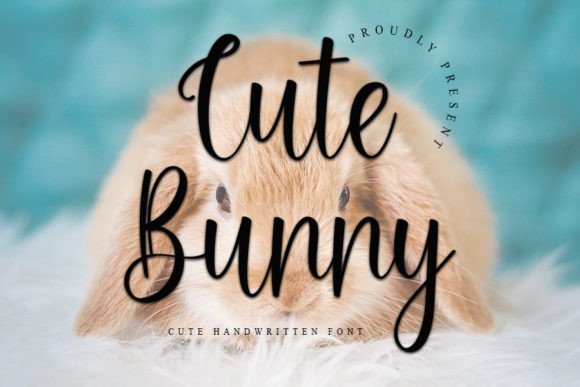
The Perfect Font for Whimsical Creations
Remember the moment when you stumbled upon the perfect font for your next design project? The thrill of finally finding that one font that brings your vision to life is truly unforgettable. For designers, discovering the right font can make all the difference between a good design and a great one. That’s exactly what happens when you come across the enchanting Cute Bunny Font.
This beautiful handwritten font boasts an elegant touch, making it perfect for a wide range of projects. Its incredibly distinct and timeless style is sure to capture the hearts of anyone who sees it. Whether you’re designing a children’s book, a wedding invitation, or a social media graphic, Cute Bunny Font is an excellent choice that will elevate your designs to the next level.
Cute Bunny Font Key Features
• Unique Characteristics: The Cute Bunny Font features adorable bunny characters, playful typography, and whimsical illustrations, making it perfect for children’s books, greeting cards, and other creative projects.
• Kerning and Ligatures: The font includes advanced kerning and ligature features, ensuring smooth and even spacing between letters for a professional look.
Cute Bunny Font Review
Overall, I think the Cute Bunny Font is a delightful addition to any design project. It’s perfect for spring and Easter-themed designs, and its whimsical nature makes it a great choice for kids’ books, party invitations, and more. ✨
The font’s rounded edges and cute bunny motifs make it instantly recognizable and visually appealing. It’s also highly legible, even at smaller font sizes. ✨
While the Cute Bunny Font is a great choice for many projects, there are a few limitations to consider:
• ⚠️ Limited font weights and styles: The font only comes in a few weights and styles, which may limit its versatility.
• ⚠️ Not suitable for formal designs: Due to its playful and whimsical nature, the Cute Bunny Font may not be the best choice for formal or professional designs.
Overall, I would recommend the Cute Bunny Font for designers who need a fun and playful font for their projects. It’s perfect for spring and Easter-themed designs, as well as kids’ books and party invitations. However, it may not be the best choice for more formal or professional designs.
Use it for playful and whimsical designs.
Pair it with other cute fonts for a cohesive look.
Experiment with different font sizes and colors to add emphasis and contrast.
The Cute Bunny Font is commonly used for:
Children’s book illustrations and design.
Party invitations and decorations.
Marketing materials and social media graphics.